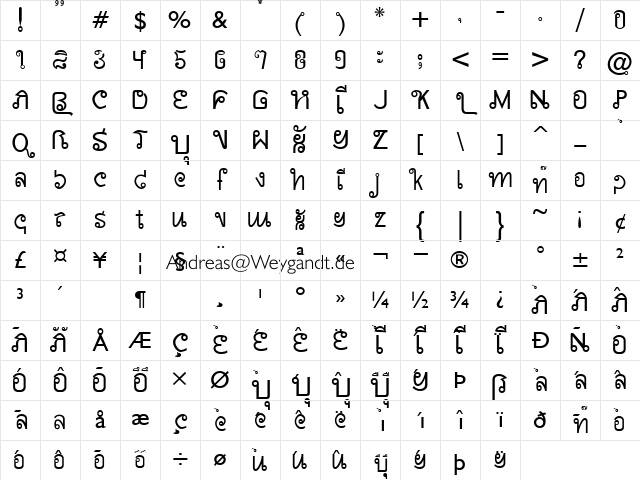
AW_Siam  English not Thai Regular
Design Context for AW_Siam English not Thai
AW_Siam English not Thai is a composed and adaptable typeface that performs quietly and consistently across a wide range of design contexts.